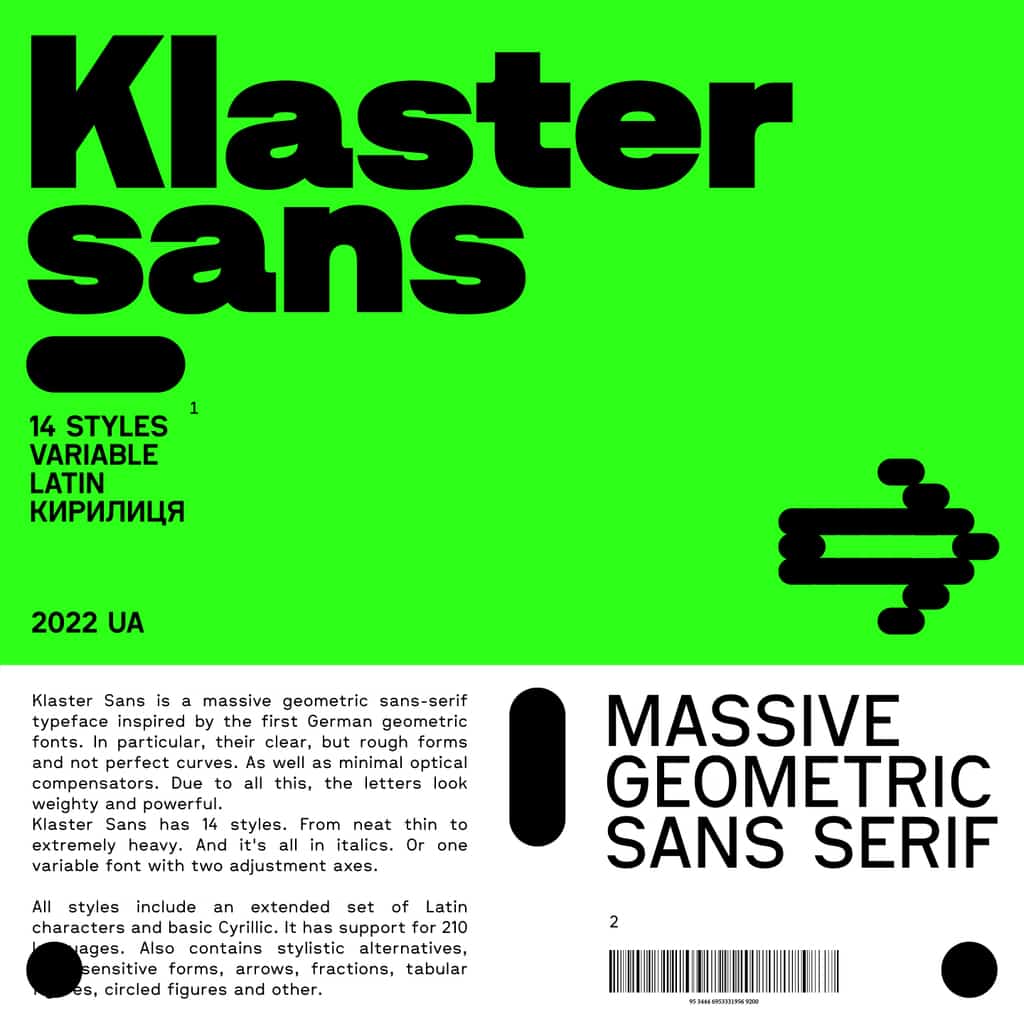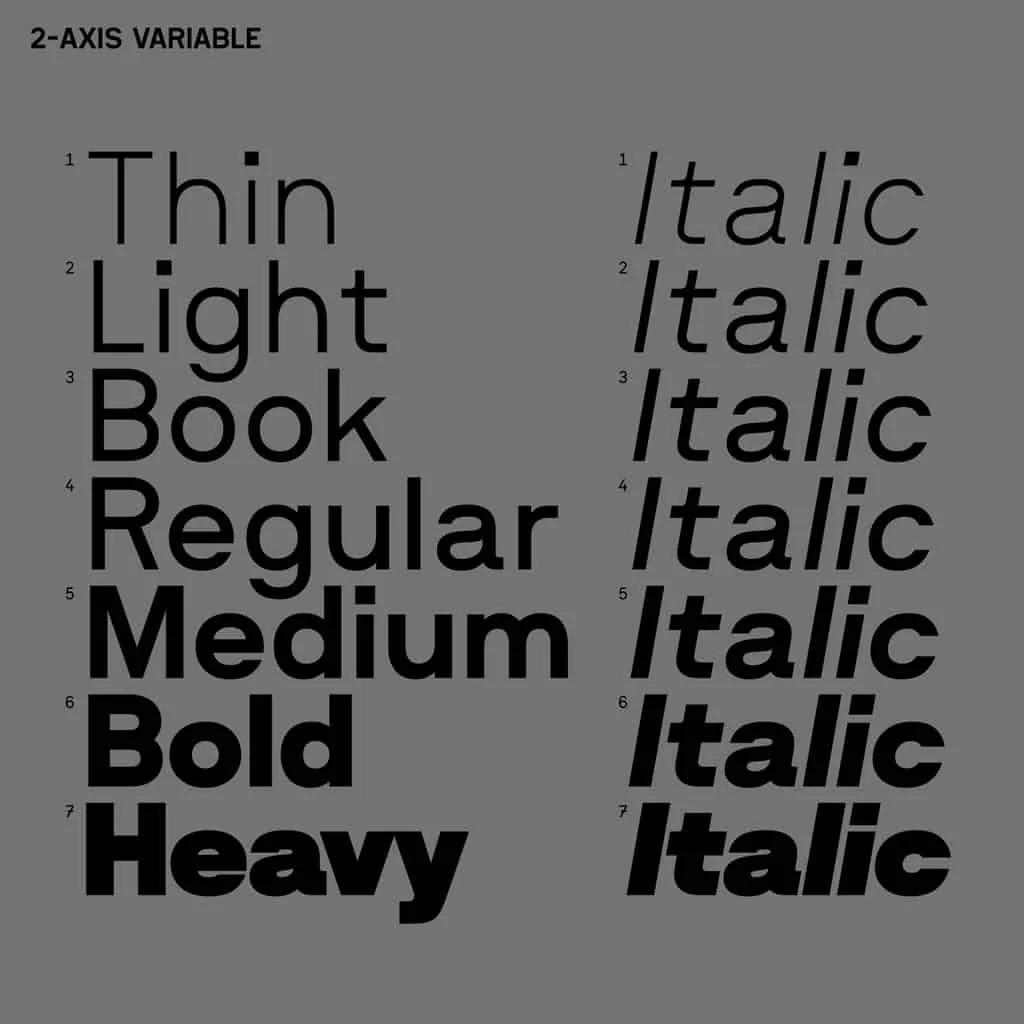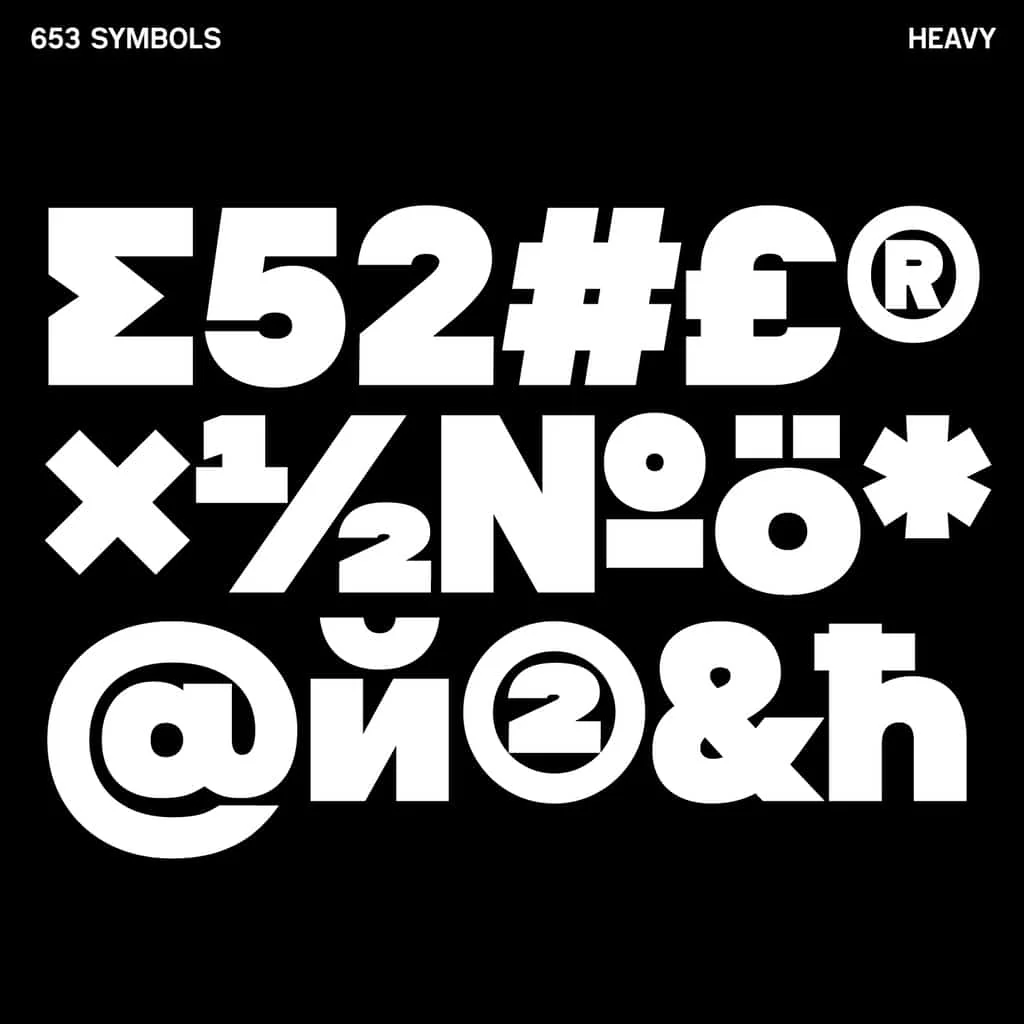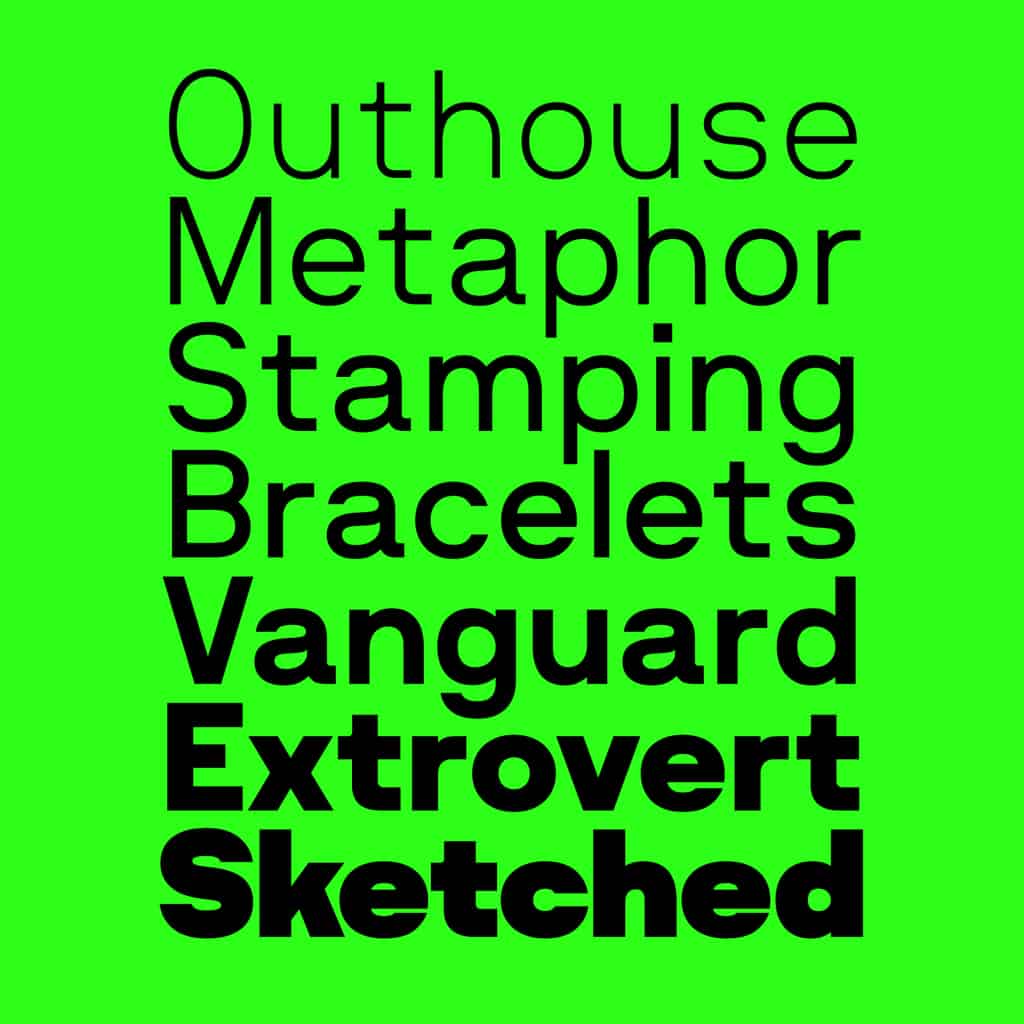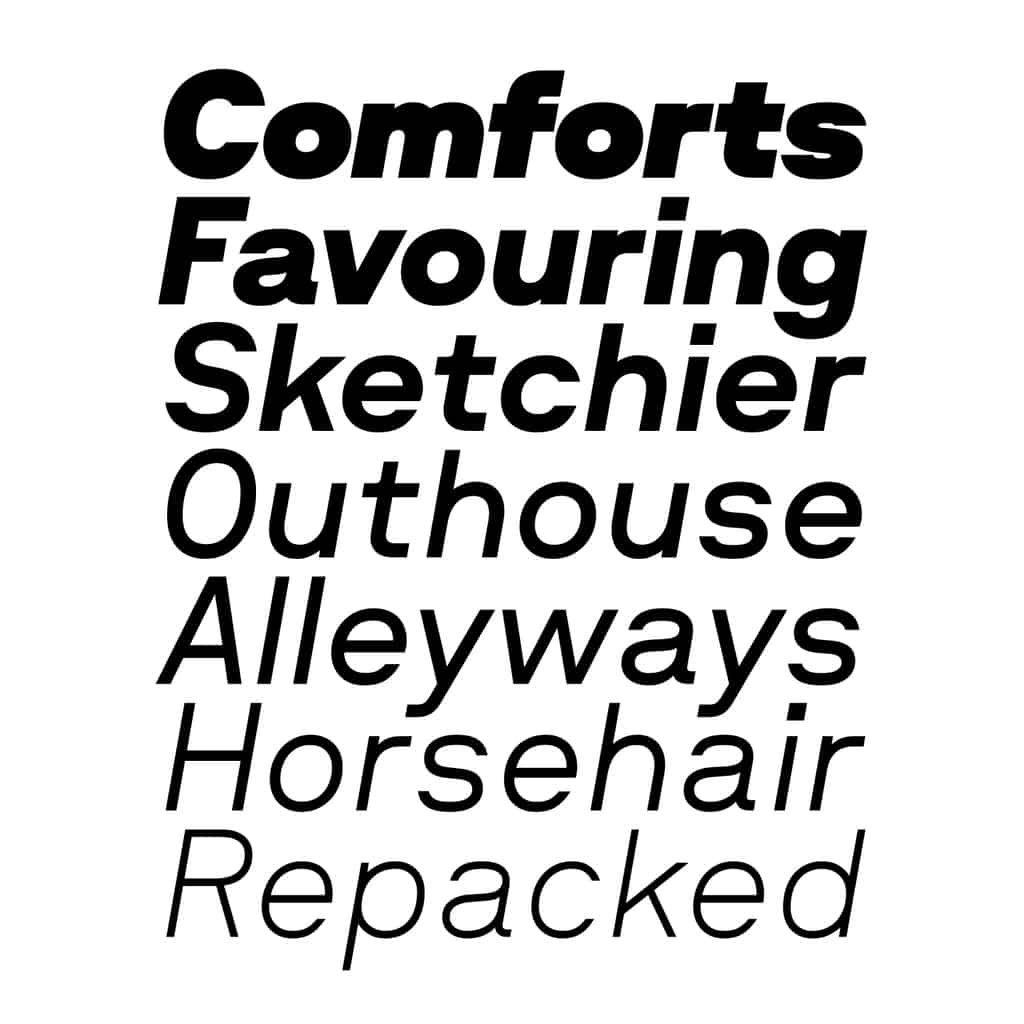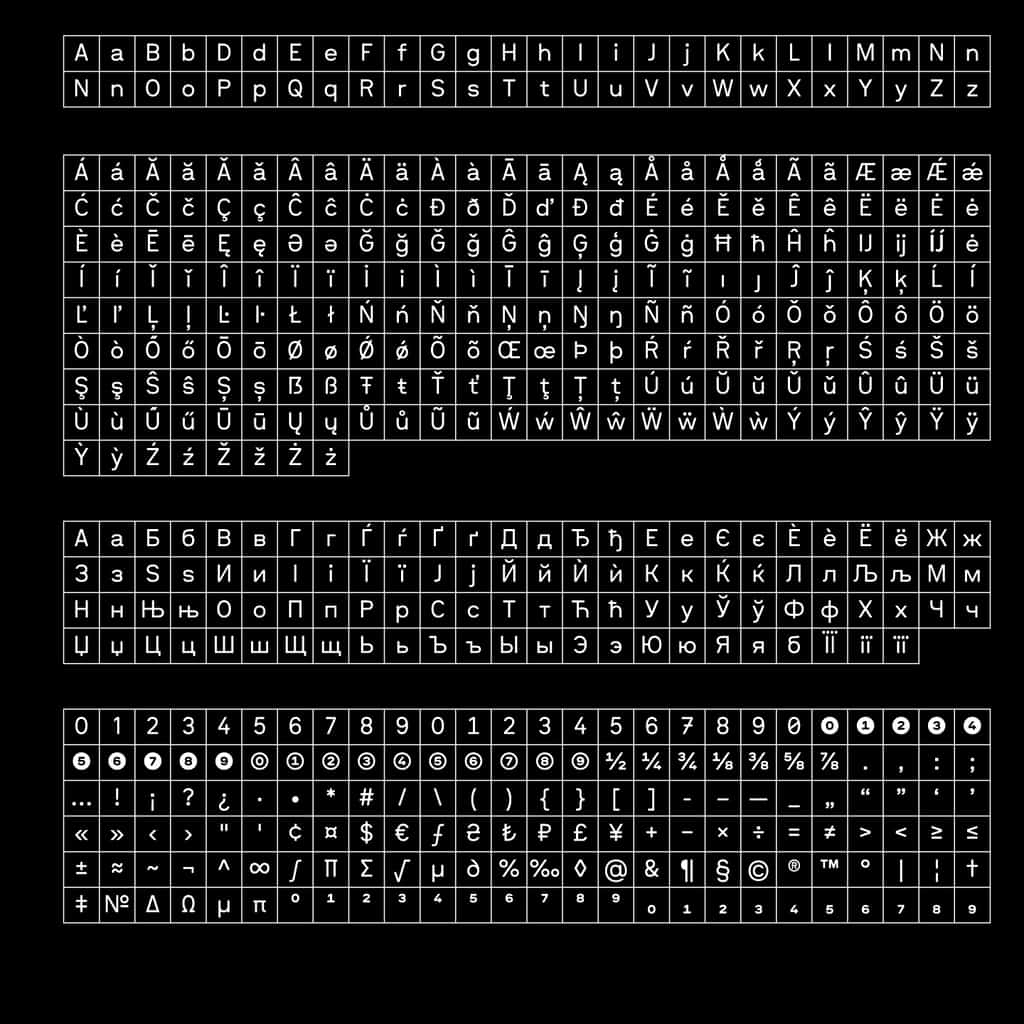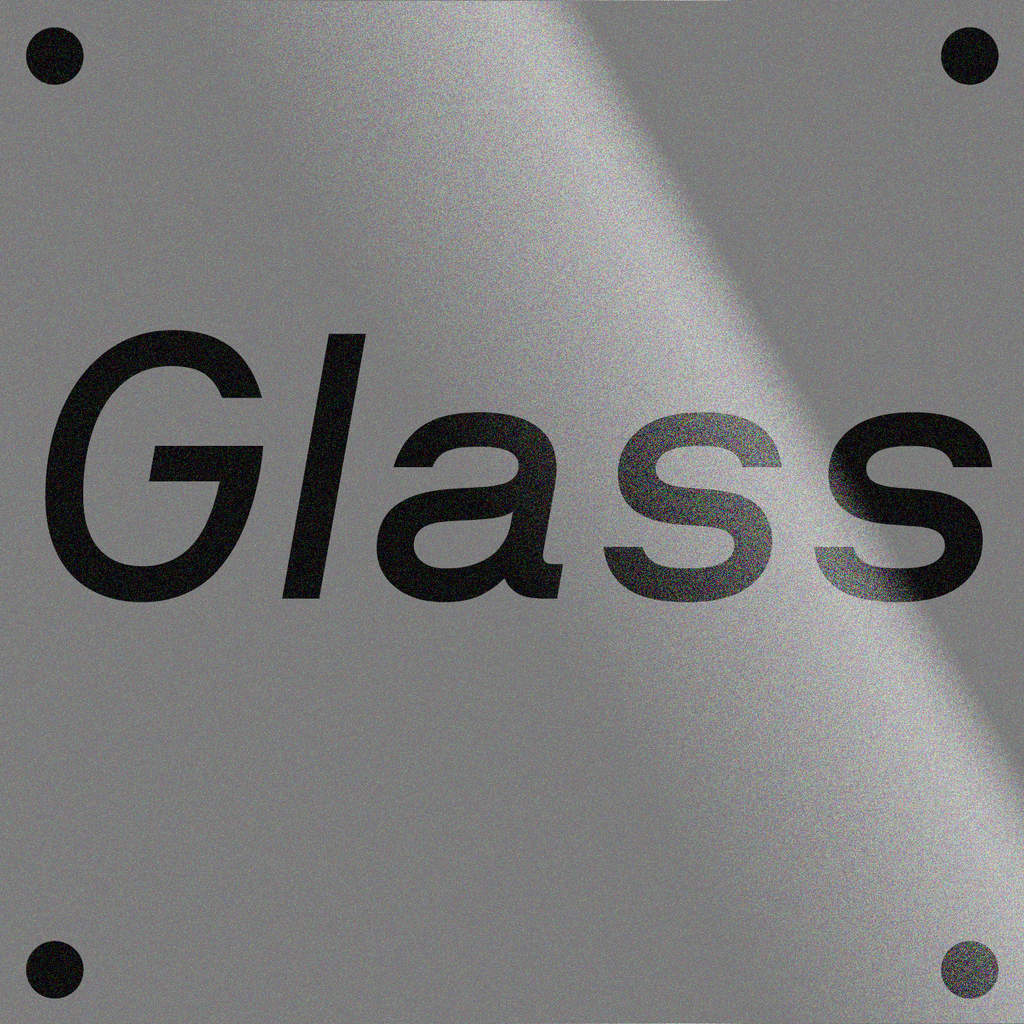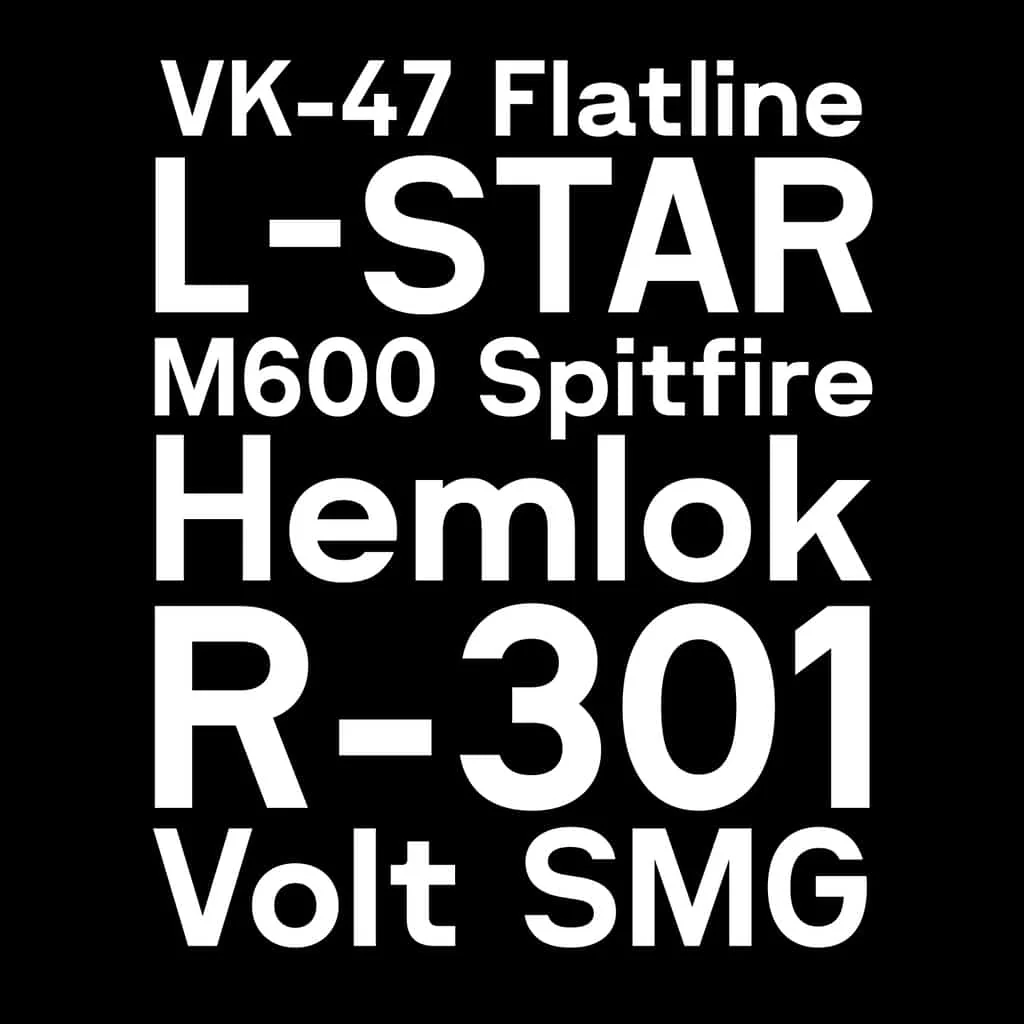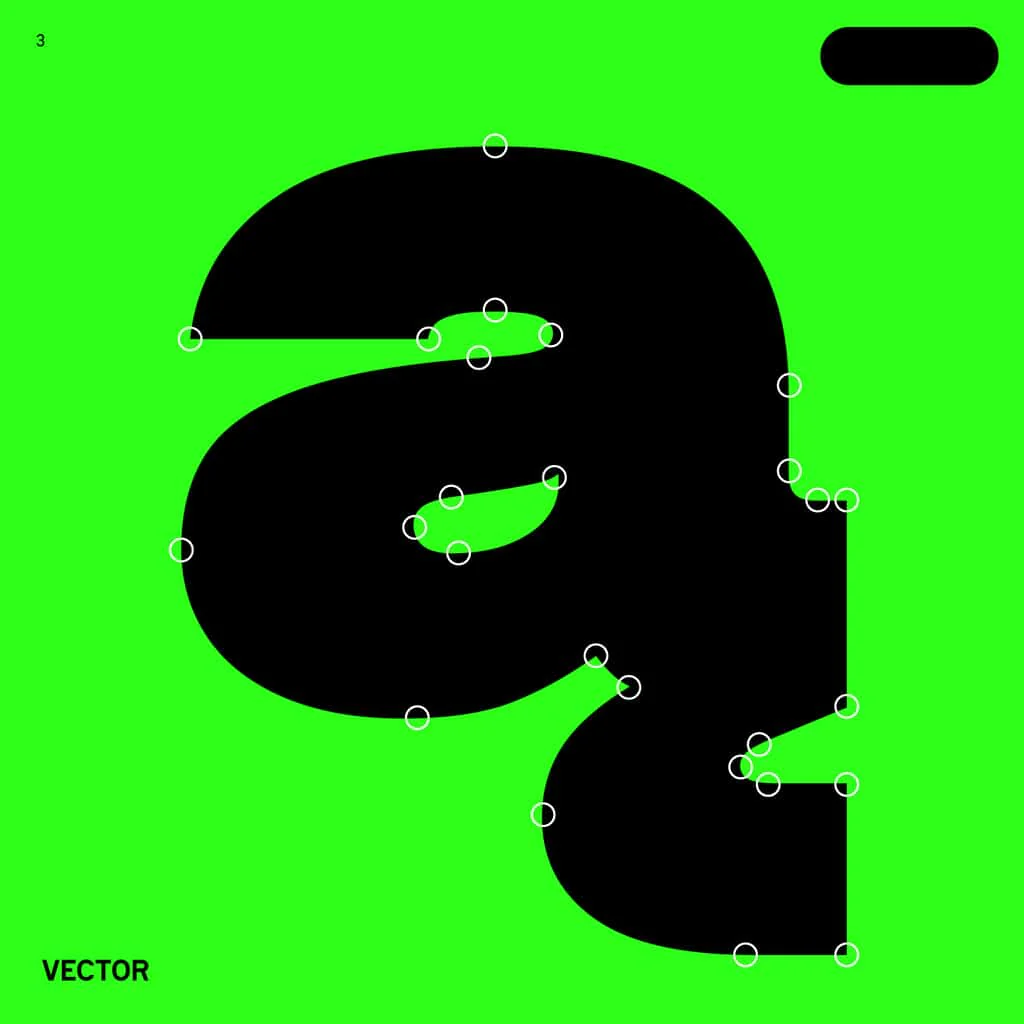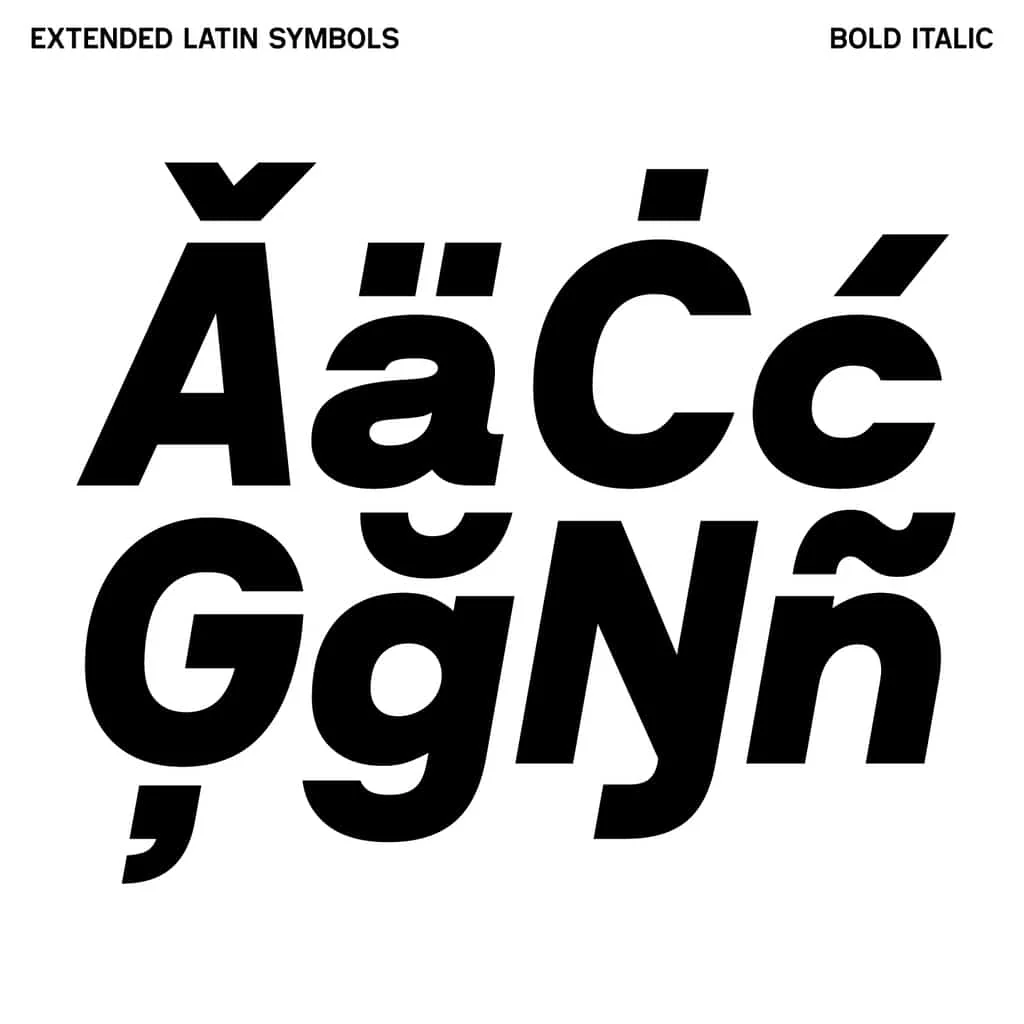
Klaster Sans
Klaster Sans is a monumental geometric sans-serif typeface that pays homage to the pioneering German geometric fonts. Its weighty and powerful appearance is achieved through clear yet rugged forms, featuring imperfect curves and minimal optical adjustments for a distinctive character.
Available in a comprehensive range of 14 weights, including matching italics, Klaster Sans offers versatility across various design applications. Each style includes an extensive set of Latin characters and basic Cyrillic, supporting up to 210 languages. This ensures seamless integration into global typographic projects, enhancing its usability and reach.
Ideal for creating bold headlines, impactful posters, and modern branding, Klaster Sans combines historical inspiration with contemporary design principles. Its robust structure and expansive language support make it a formidable choice for designers seeking clarity and versatility in their typographic compositions.
Klaster Sans is a monumental geometric sans-serif typeface that pays homage to the pioneering German geometric fonts. Its weighty and powerful appearance is achieved through clear yet rugged forms, featuring imperfect curves and minimal optical adjustments for a distinctive character.
Available in a comprehensive range of 14 weights, including matching italics, Klaster Sans offers versatility across various design applications. Each style includes an extensive set of Latin characters and basic Cyrillic, supporting up to 210 languages. This ensures seamless integration into global typographic projects, enhancing its usability and reach.
Ideal for creating bold headlines, impactful posters, and modern branding, Klaster Sans combines historical inspiration with contemporary design principles. Its robust structure and expansive language support make it a formidable choice for designers seeking clarity and versatility in their typographic compositions.